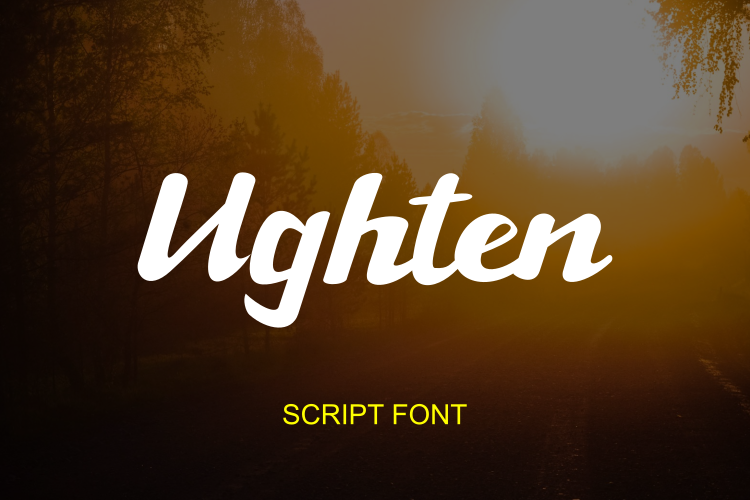
Ughten
Dear type lovers, meet Ughten - a script with a huge personality. Warm, amiable and organic, yet elegant, it is perfect if you want to convey individuality and style.
Ughten work easily together to create visually appealing logos, packaging, presentations, headlines or editorials.